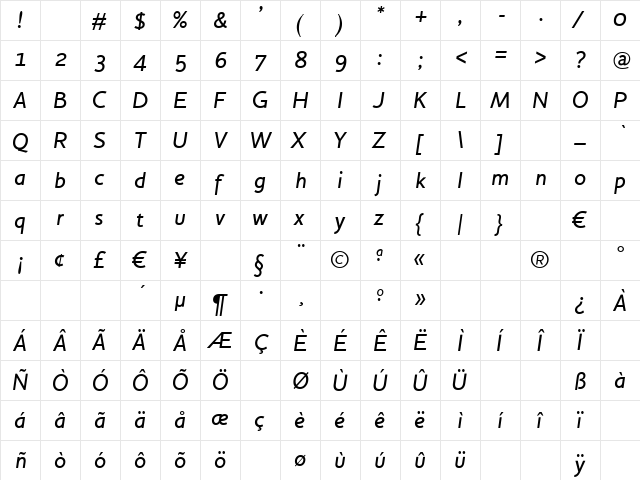
HouschkaAltMediumItalic Regular
Design Context for HouschkaAltMediumItalic Typeface
HouschkaAltMediumItalic takes a measured approach to typography — its balanced proportions and neutral character make it a reliable workhorse for both digital and print work. Its italic angle brings a sense of urgency and motion to the letterforms.
Pro Tip: Try HouschkaAltMediumItalic for annotation and caption copy alongside an upright companion — the contrast in angle creates a dynamic but ordered typographic system.